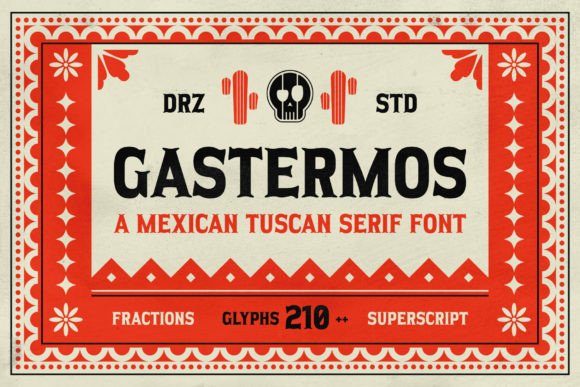
Gastermos Font: A Unique Blend of Mexican and Tuscan Elegance
In the world of typography, fonts play a crucial role in conveying the tone and personality of a brand or design. With the vast array of fonts available, it can be challenging to find one that stands out from the rest. However, if you’re looking for a font that combines traditional Mexican design elements with the classic elegance of Tuscan serif styles, look no further than Gastermos Font.
Gastermos – Mexican Tuscan Serif Font
Gastermos is an inspired typeface that blends traditional vintage-Mexican design elements with the classic elegance of Tuscan serif styles. This unique font captures the rich cultural heritage and intricate artistry of Mexican aesthetics, making it ideal for projects that seek to convey a sense of history, authenticity, and decorative flair.
Design Elements of Gastermos Font
Gastermos Font boasts a distinctive design that sets it apart from other fonts. Its Tuscan serif style is characterized by:
- Classic elegance: Gastermos Font features a classic, sophisticated design that exudes elegance and refinement.
- Serif style: The font’s serif style adds a touch of traditional flair, reminiscent of classic typography.
- Mexican influences: Gastermos Font incorporates traditional Mexican design elements, such as intricate details and ornate flourishes.
Cultural Inspiration Behind Gastermos Font
Gastermos Font draws inspiration from the rich cultural heritage of Mexico, a country known for its vibrant art, architecture, and design. The font’s design elements are influenced by:
- Traditional Mexican art: Gastermos Font features intricate details and ornate flourishes reminiscent of traditional Mexican art.
- Mexican architecture: The font’s design is inspired by the country’s stunning architecture, which often features ornate facades and decorative details.
- Rich cultural heritage: Gastermos Font captures the essence of Mexico’s rich cultural heritage, making it an ideal choice for projects that seek to convey a sense of history and authenticity.
Uses of Gastermos Font
Gastermos Font is a versatile typeface that can be used in a variety of design projects, including:
- Branding and logos: Gastermos Font’s unique design makes it an excellent choice for branding and logo design projects.
- Packaging design: The font’s decorative flair and classic elegance make it suitable for packaging design projects.
- Advertising and marketing: Gastermos Font can add a touch of sophistication and elegance to advertising and marketing materials.
- Web design: The font’s legibility and classic design make it an excellent choice for web design projects.
Key Features of Gastermos Font
Gastermos Font boasts a range of features that make it an excellent choice for designers, including:
- Multilingual support: Gastermos Font supports multiple languages, making it a versatile choice for global design projects.
- High-quality design: The font features a high-quality design with intricate details and ornate flourishes.
- Easily customizable: Gastermos Font is easily customizable, allowing designers to tailor the font to their specific needs.
Gastermos Font is a unique and elegant typeface that blends traditional Mexican design elements with the classic sophistication of Tuscan serif styles. Its rich cultural heritage and intricate artistry make it an ideal choice for projects that seek to convey a sense of history, authenticity, and decorative flair. With its versatility, high-quality design, and range of features, Gastermos Font is an excellent addition to any designer’s font library.